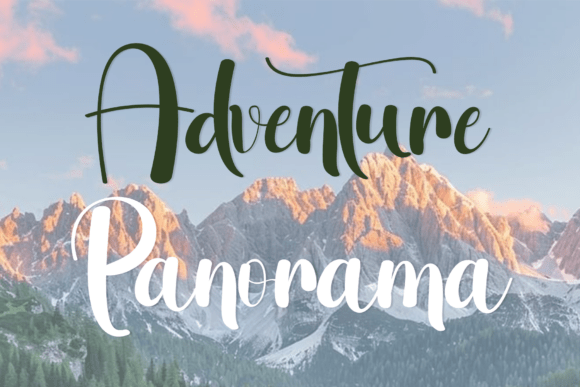
Enter the Adventure Panorama Font, a sophisticated and rhythmic script font that embodies the unique and professional autumnal visual voice you’ve been searching for. With its high-contrast strokes, thick downstrokes, and delicate hairline connectors, this font is a premier asset for any designer looking to elevate their seasonal marketing, packaging, or editorial projects.
Key Features of Adventure Panorama Font
- Unique Character Set: Adventure Panorama Font features a unique set of characters, including alternative glyphs, ligatures, and swashes, which can add a touch of elegance and sophistication to your designs.
- High-Quality Typography: The font is designed with high-quality typography in mind, featuring precise letterforms, optimal kerning, and a clear, readable layout, ensuring that your text stands out and engages your audience.
Adventure Panorama Font Review
As a designer, I’ve had the chance to play around with the Adventure Panorama Font, and I must say it’s a unique and intriguing choice. ✨ The font’s most notable feature is its versatility – it can work well in a variety of contexts, from outdoor and adventure-themed projects to more general use cases. The font’s bold and playful feel makes it perfect for headings and titles.
- ✨ The font’s unique design elements, such as the varying line widths and organic feel, make it stand out from more traditional fonts.
- ✨ The font’s bold and playful feel makes it perfect for headings and titles.
- ✨ The font is highly customizable, making it easy to adjust to different design contexts.
However, there are some limitations to consider. ⚠️ The font may not be suitable for body text due to its bold and playful nature, which can be overwhelming for large blocks of text. Additionally, the font may not be as legible in smaller sizes, which could be a concern for designers who need to use the font in smaller contexts.
Overall, I think the Adventure Panorama Font is a great choice for designers who are looking for a unique and eye-catching font. While it may have some limitations, its versatility and customizability make it a valuable addition to any design arsenal.
Tips for Getting the Most Out of Adventure Panorama Font